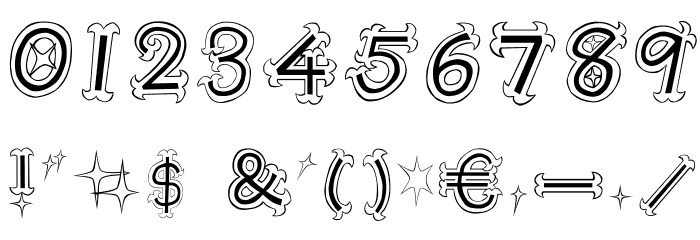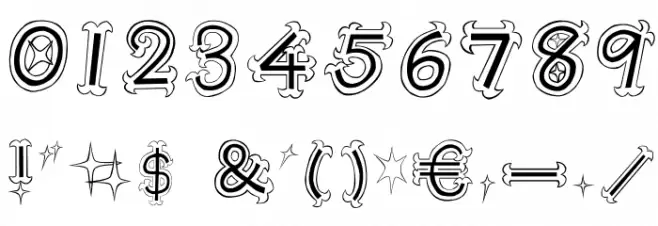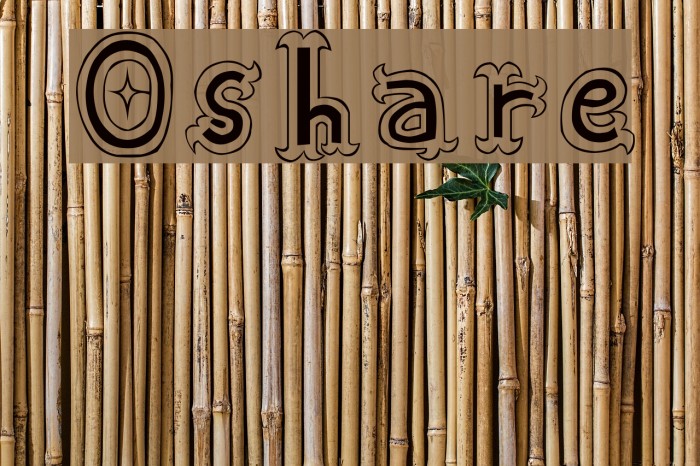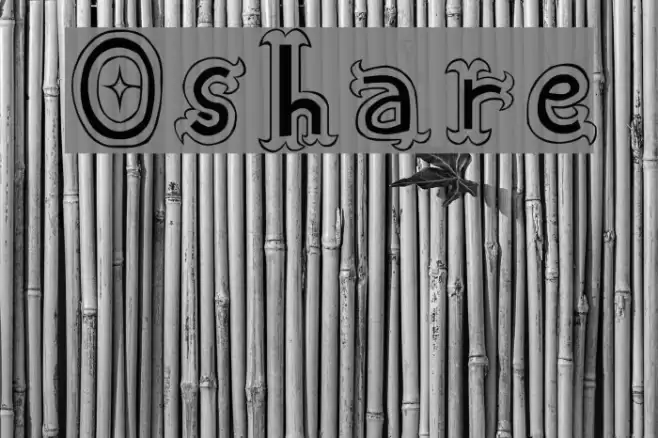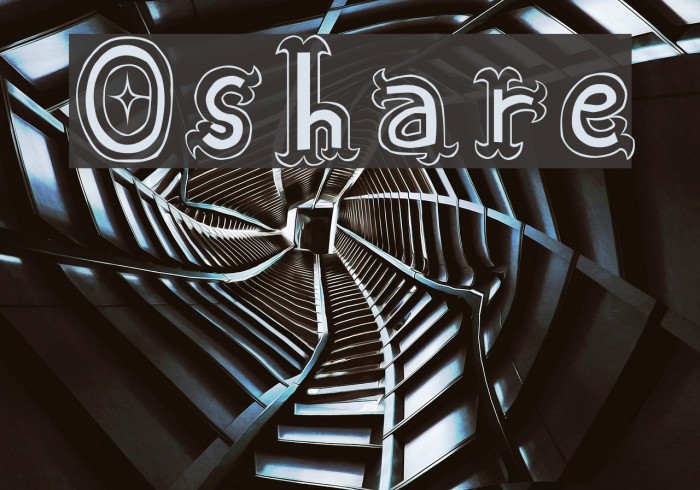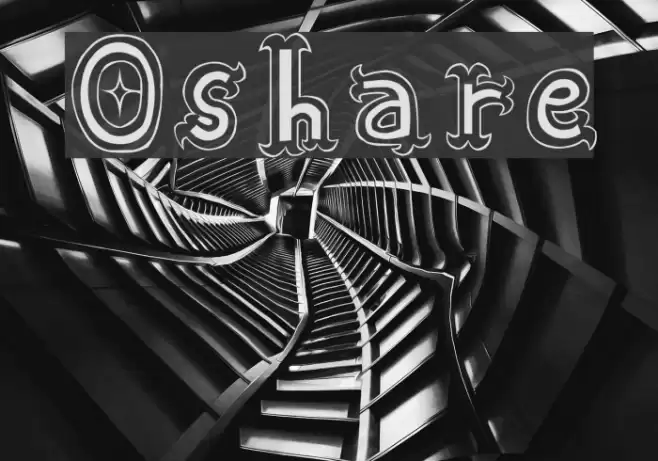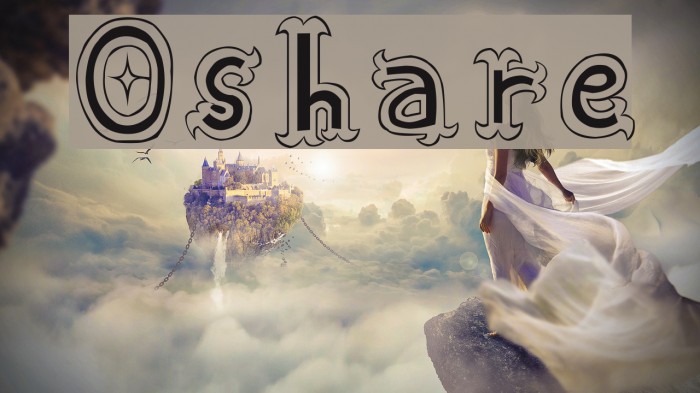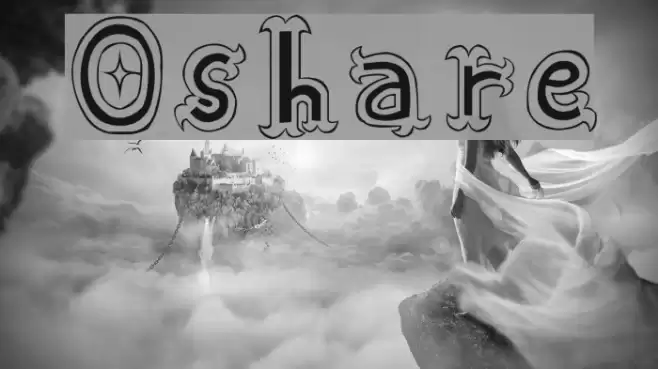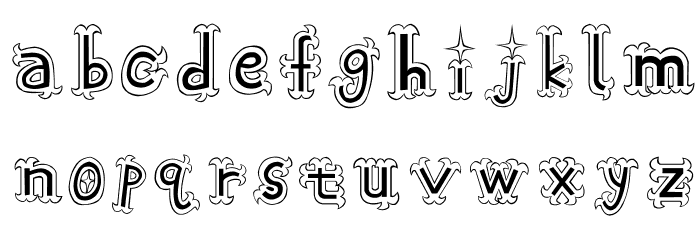
Oshare Font
| Proiecte propuse | Ideal for creative projects such as event invitations, posters, and branding materials that require a whimsical and eye-catching design. |